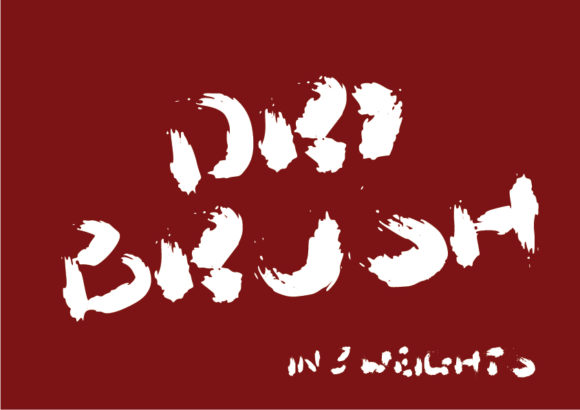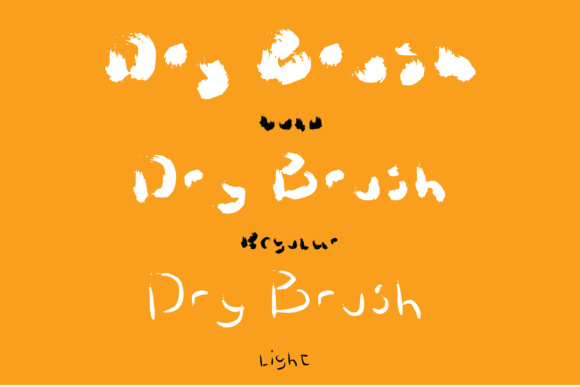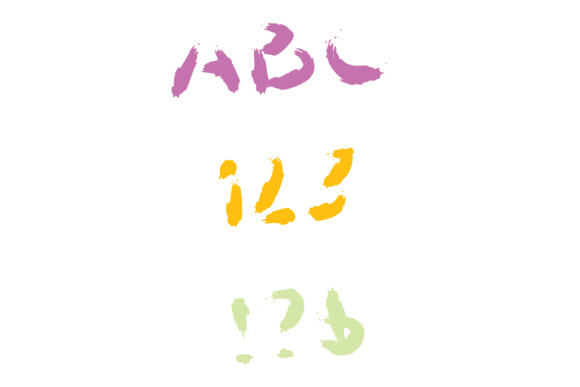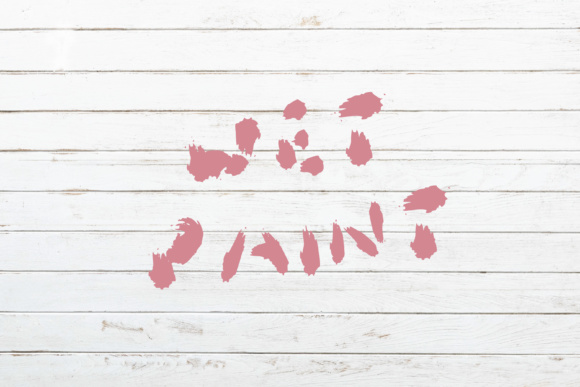
Dry Brush Font
About Dry Brush Font
An old, thrown out, forgotten and unloved brush. Brought back to life to show off all its dry nasty strokes. Effected hand drawn brush style type face full of character and style for a very homemade feel.